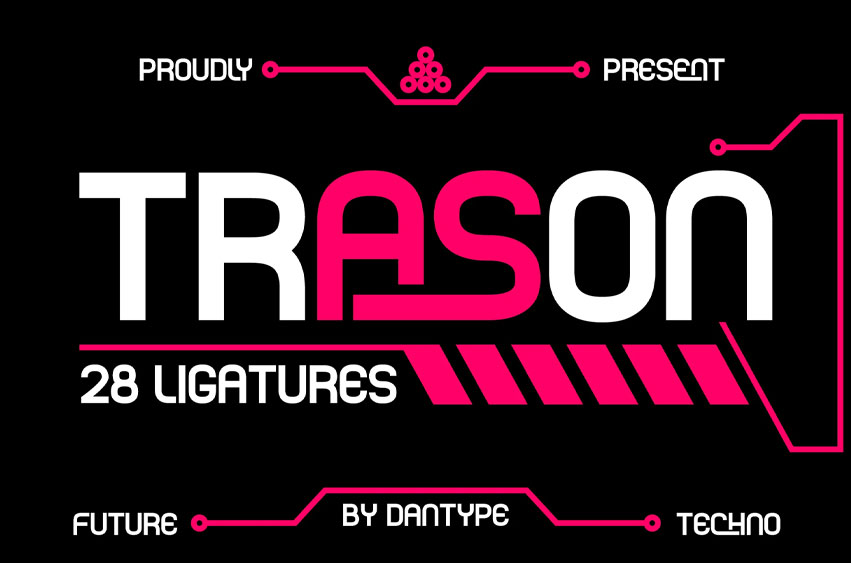
Trason Font
Trason Font is a futuristic techno display typeface designed to bring a modern and innovative edge to your projects. Featuring 28 unique ligatures, this font delivers versatility and creativity, allowing you to craft striking typographic compositions.
Its bold geometric forms, sharp curves, and clean digital aesthetic make it the perfect choice for technology branding, cyberpunk themes, gaming titles, electronic music posters, and futuristic editorial designs.
Trason isn’t just a font – it’s a statement of speed, power, and the future of digital typography.
• All Caps, Numbers & Punctuation